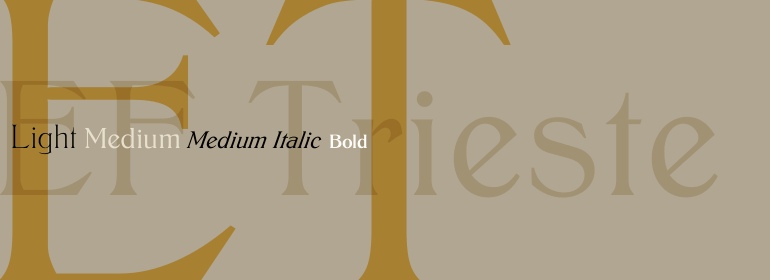
Trieste EF Font
Trieste EF Font is perfect for Italian restaurant branding, Mediterranean cuisine menus, European travel campaigns, luxury wine labels, romantic wedding invitations, boutique hotel signage, cultural heritage materials, artistic gallery exhibitions, sophisticated packaging design, elegant fashion branding, coastal resort identity, and enchanting storytelling applications.
Trieste EF Font is exciting because it captures the romantic elegance and cultural sophistication of European coastal cities with gracefully refined letterforms that evoke images of Adriatic sunsets, historic architecture, and the timeless beauty that defines Mediterranean culture and Italian artistic heritage.
The Trieste EF Font family includes European variations: Regular, Bold, Light, Italic, Condensed, and Extended styles, providing designers with a complete Mediterranean typography system to create sophisticated compositions that celebrate European culture and the romantic appeal of coastal Italian elegance.
Journey to European elegance with Trieste EF Font Free Download. This sophisticatedly beautiful typeface brings the romantic charm and cultural richness of Mediterranean coastal cities to contemporary design projects. Whether you're creating European-inspired brand identities, designing cultural event materials, or developing luxury travel campaigns, Trieste EF Font delivers unmatched sophistication and continental appeal.
The font's elegantly crafted letterforms reflect the architectural beauty and cultural refinement that define historic European cities, with classical proportions and refined details that suggest centuries of artistic tradition, coastal romance, and the sophisticated lifestyle that characterizes Mediterranean culture.
Trieste EF Font excels in creating distinguished brand experiences for businesses celebrating European culture, luxury hospitality, and sophisticated lifestyle sectors. Its cultured presence transforms ordinary communications into elegant expressions that resonate with audiences seeking authentic European sophistication and refined taste.
Professional designers appreciate how Trieste EF Font maintains authentic European character while providing exceptional functionality across diverse luxury applications. The comprehensive style range ensures optimal performance from intimate wine cellar labels to grand cultural festival displays, maintaining consistent elegance and continental credibility.
This remarkable typeface brings instant European authenticity to luxury ventures and culture-focused businesses. From Italian restaurants to European travel agencies, Trieste EF Font creates lasting impressions that communicate refinement, cultural heritage, and the timeless appeal of European coastal elegance and Mediterranean sophistication.